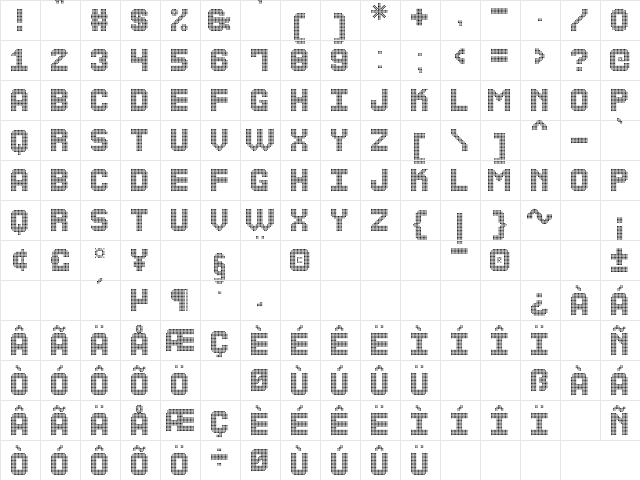
The Led Display St Regular
Design Context for The Led Display St Typeface
The Led Display St is built around its visual character rather than neutral utility — its distinctive forms are designed to make an impression at display sizes.
Font Pairing: Pair with a clean neutral sans-serif for body copy to let The Led Display St's character lead without overwhelming the composition.
Pro Tip: Treat The Led Display St as the centrepiece of your typographic hierarchy. One strong heading set in a decorative face can carry an entire layout.